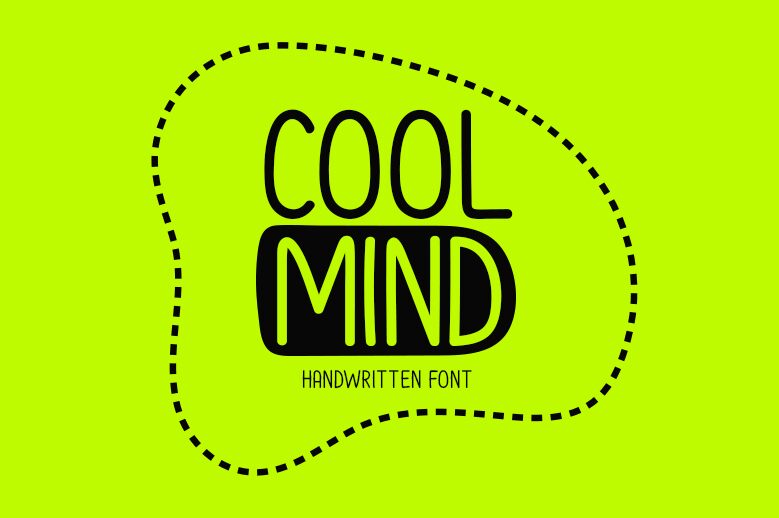
Cool Mind
Cool Mind font by Md Shohail Bhuian is a free handwritten font with a casual and approachable presence. Its relaxed lines and rounded letters give it a contemporary, youthful appearance. Imbued with friendly and inviting feelings, designed characters visually communicate warmth and simplicity.
The overall vibe makes this typeface perfect for various branding projects from company logos, professional business cards and elegant labels to cool fashion magazine headers, eye-catching book covers and posters. Feel free to include Cool Mind in anything from social media posts, inspirational quotes or even in your custom stylish greeting cards and invitations!